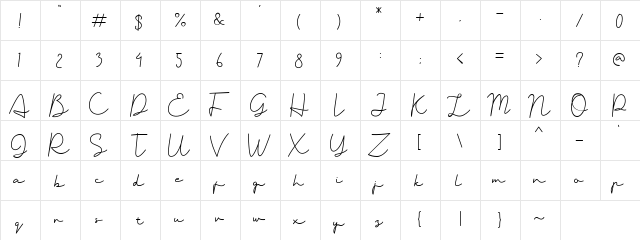
Badriyah Two Regular
Design Context for Badriyah Two Typeface
Badriyah Two is a composed and adaptable typeface that performs quietly and consistently across a wide range of design contexts.